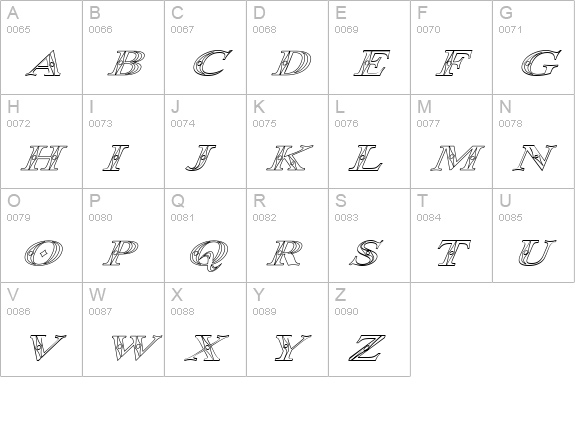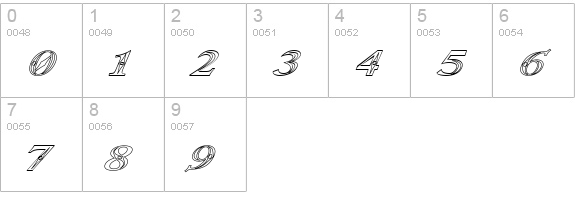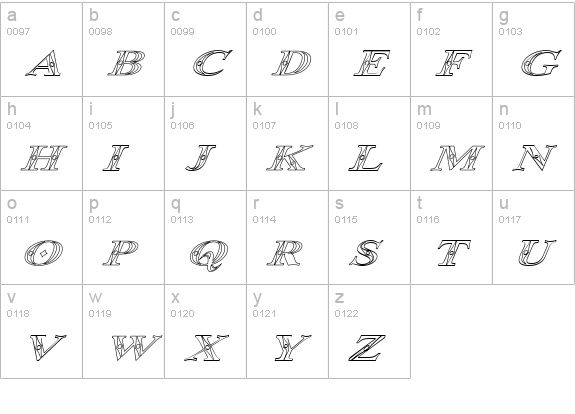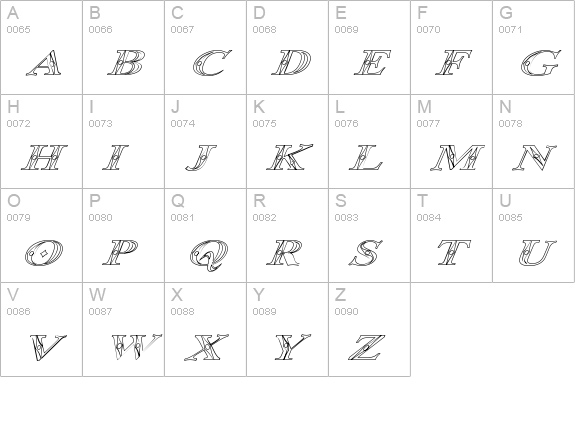
Occoluchi Italic Outline Font Details
Occoluchi Italic Outline is a distinctive, italic variant in the Occoluchi typeface family \xE2\x80\x94 well suited to design and typography projects.
Occoluchi Italic Outline font is a modern and stylish typeface that exudes elegance and sophistication. Its sleek lines and unique design make it perfect for adding a touch of class to any project. The italic style adds a dynamic and energetic feel to the text, while the outline gives it a contemporary edge. This font is ideal for creating eye-catching headlines, branding materials, invitations, and more. Whether you're designing a poster, website, or logo, Occoluchi Italic Outline font will make your text stand out and grab attention. The best part is that Occoluchi Italic Outline font is available for free download at FontsMarket.com. You can easily access this stunning font and use it in your personal or commercial projects without any cost. Don't miss out on this fantastic opportunity to enhance your designs with this elegant and versatile typeface.